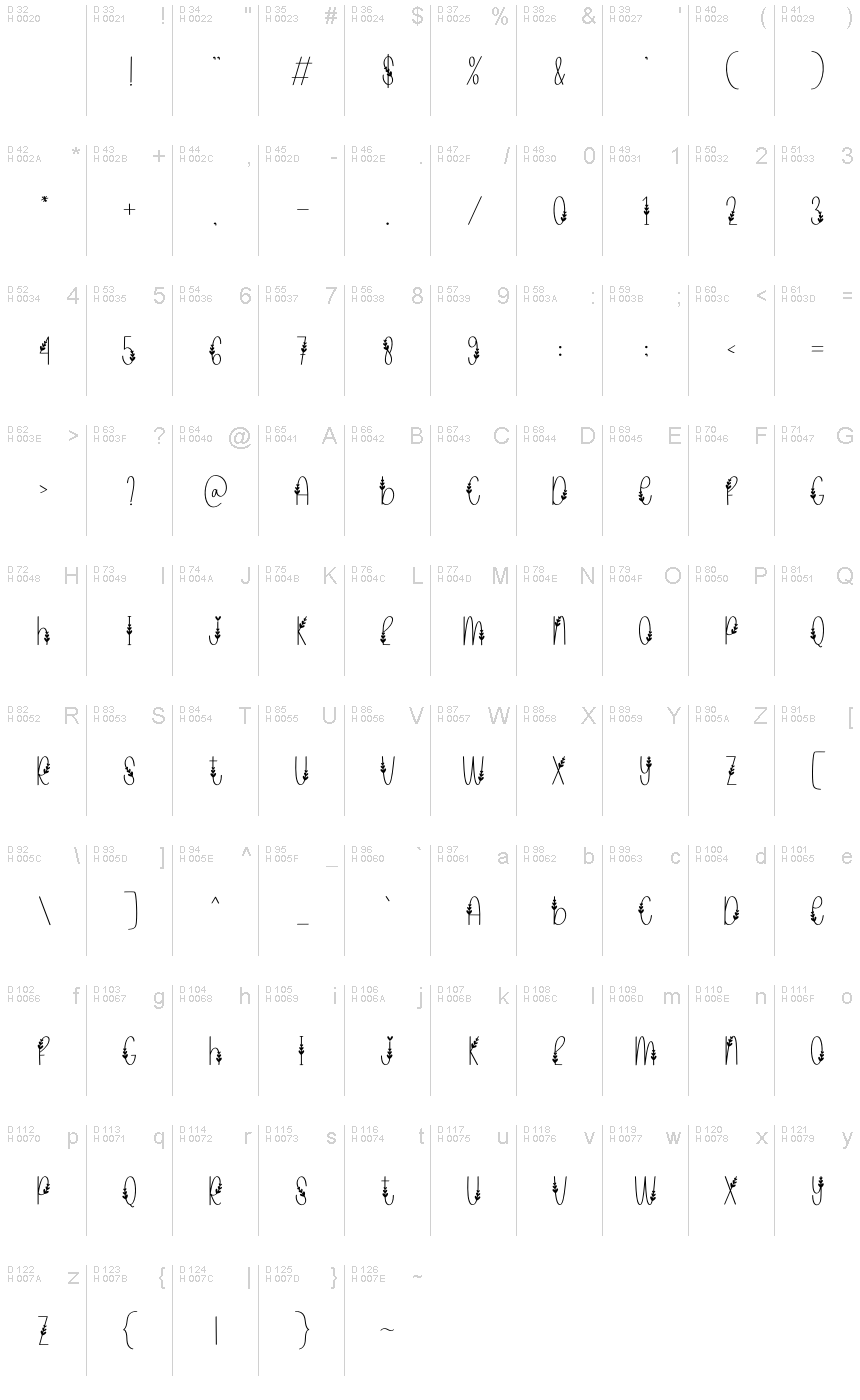
Valentines
Valentines, a font lovingly crafted by Inermedia Studio, embodies the charm and whimsy of a handwritten note. With its fluid letterforms and playful heart embellishments, this typeface adds a personal touch to any project, making it resonate with warmth and intimacy.
The elegant yet informal style of Valentines makes it an ideal choice for invitations, greeting cards, and branding projects that require a touch of affection. Whether you're looking to convey romance or simply add character to your design work, Valentines offers a delightful aesthetic that's versatile enough for both digital and print mediums. Embrace the heartfelt allure of this handwritten font to infuse your creative endeavors with an endearing sophistication.